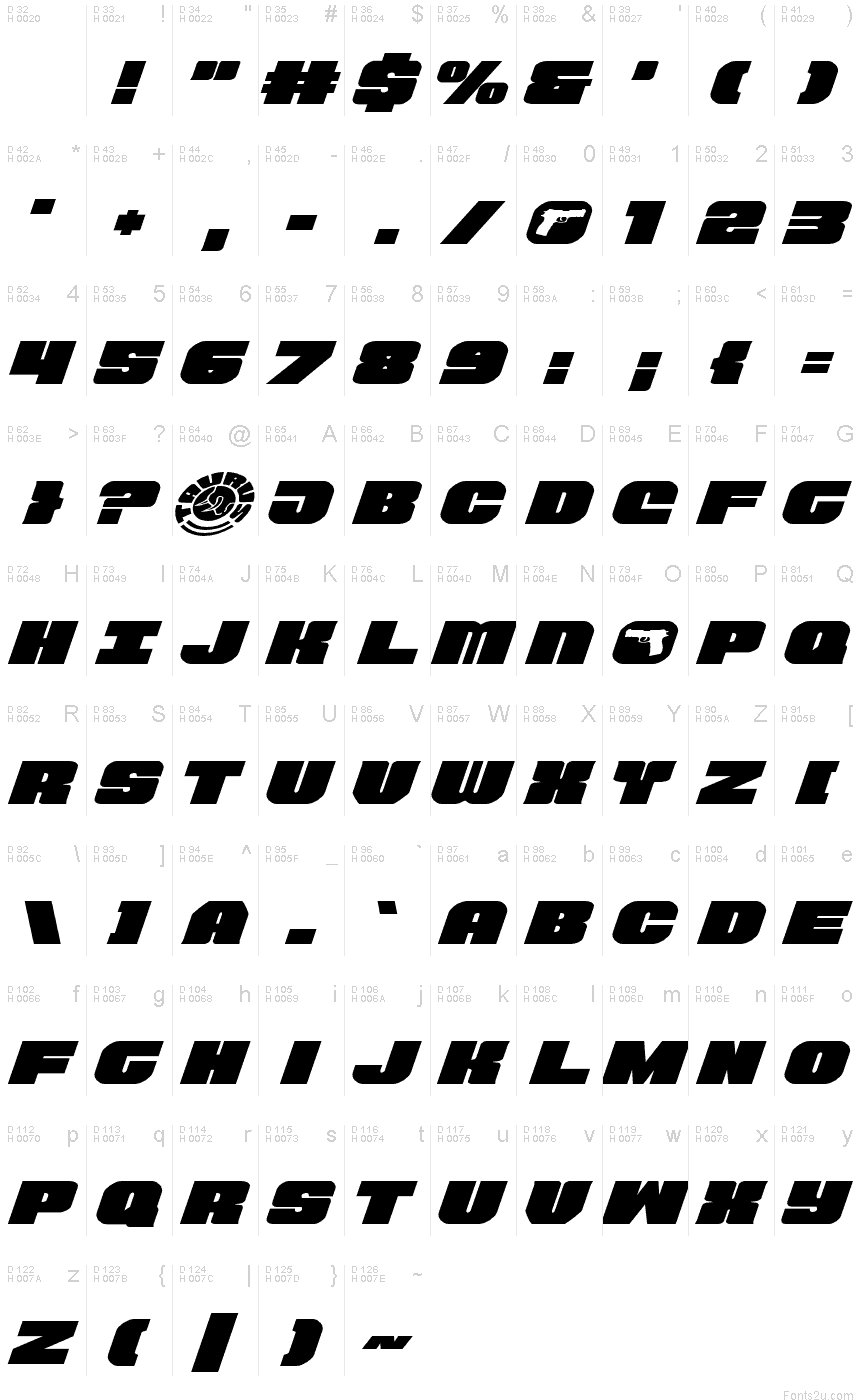
Tauro Expanded Italic, created by Iconian Fonts in 2012, is a free modern display font with a forceful, forward-leaning profile. Its broad letters combine deep curves with abrupt diagonal cuts and long pointed joins. Tight internal spaces make the silhouette feel dense and fast.
A racing team, sportswear label, or gaming brand could use its aerodynamic shapes for logos and campaign graphics. Those blade-like cuts echo vehicle panels and speed graphics, suiting motorsport posters and merchandise.